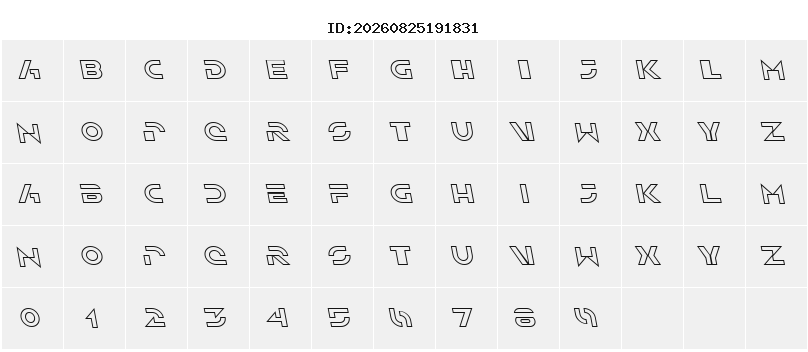
• Font Name: SF Solar Sailer Outline
About SF Solar Sailer Outline.ttf
SF Solar Sailer Outline.ttf is a modern, elegant sans-serif font designed for ultimate readability and visual harmony. Perfect for branding, headlines, web design, and print materials.